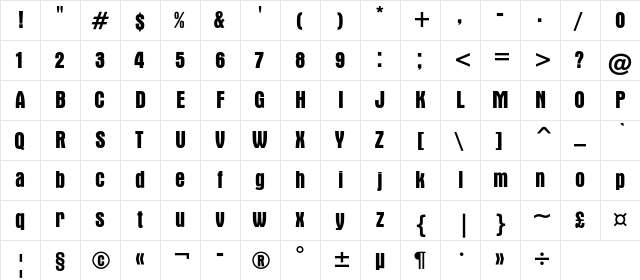
ApicalC Bold Font Preview
ApicalC Bold
Design Context for ApicalC Typeface
ApicalC offers clean, dependable letterforms without strong stylistic allegiance, making it a practical choice for designers who need flexibility. Its bold stroke weight gives it real presence on the page.